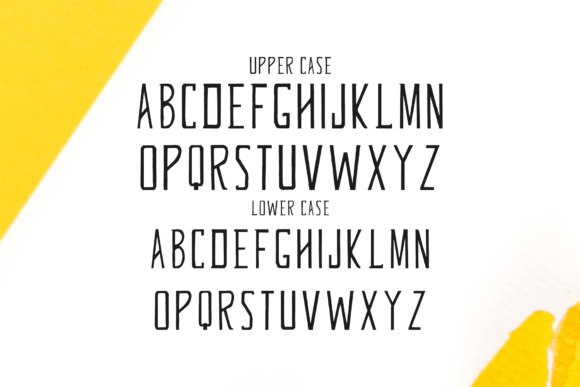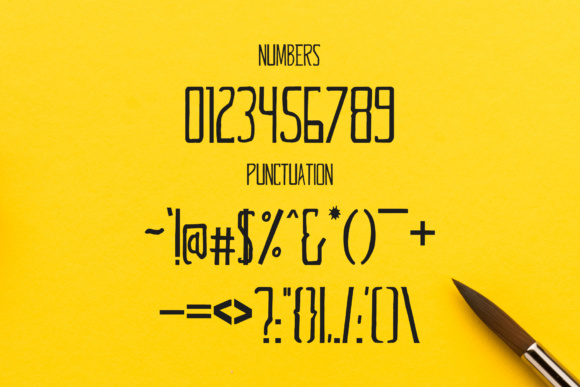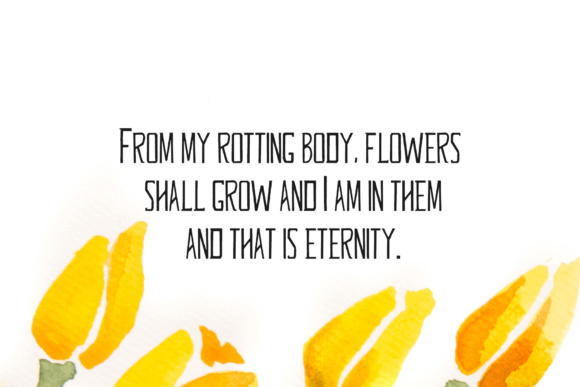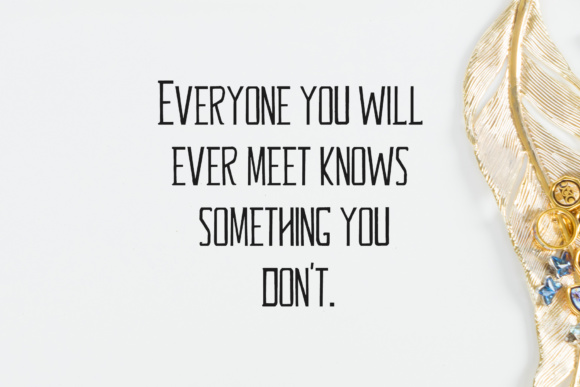
Glennda Family Font
About Glennda Family Font
Glennda is a beautiful handwritten font which contains 5 weights. It is specifically designed for minimal projects. It looks gorgeous in all caps with a wide-set spacing if you want to try a classy look, or beautiful on its own in capital and lowercase letters for something completely timeless.
– Glennda is a highly versatile Font.
– Includes 5 weights – Regular, Italic, Blur, Outline and Tracked.
– The perfect choice for Future, Modern, Fashion & Magazine Titles.
– Great for use on quotes, short phrases, magazines, logotypes and all sorts of advertising.